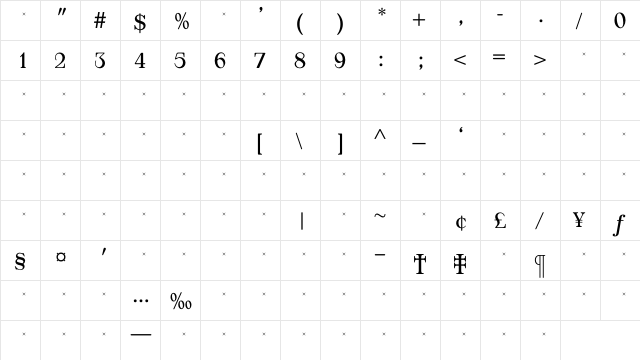
AppleyardLightTab Regular
Design Context for AppleyardLightTab Typeface
AppleyardLightTab offers clean, dependable letterforms without strong stylistic allegiance, making it a practical choice for designers who need flexibility. The delicate stroke weight brings airiness and refinement to layouts.